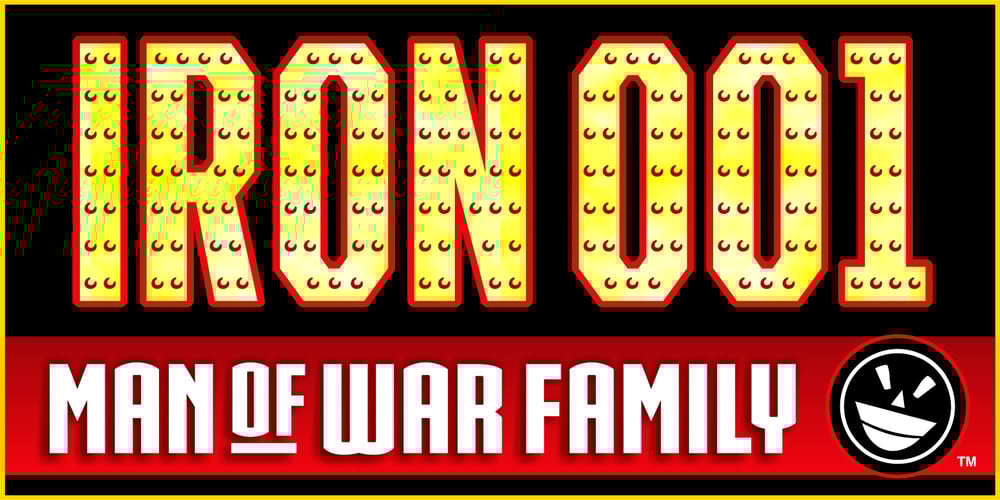
IRON MAN OF WAR Font Family was designed by Michael Gene Adkins and published by The Fontry. IRON MAN OF WAR contains 8 styles and family package options. Get ready to experience four ferrous versions of an industrialistic face that will leave your graphics anchored in place and armored up for war. Replete with buckets of rivets and powerful angles, the IMOW font family will help you lock down a layout in ways regular typefaces can’t match. Your designs will experience an invincibility rarely seen as you choose between plain or permanently bolted in place. Which one will be the primary weapon in your arsenal? All certainly have the power to handle any task put to them. So which will you choose to suit up and enter the fray with? To visit the specimen book for the IMOW family, click the Gallery tab. If your browser is having trouble viewing the PDF spec book, simply go to the gallery, right click on the PDF image, and save it to your computer for direct viewing in Adobe Acrobat. Certain browsers like Google Chrome will provide better viewing results. The spec book for the IMOW family is quite extensive, highlighting replacement features, layering capabilities and expanded language support. In short, it’s worth the look. Click this link to go directly to PDF browser view: http://origin.myfonts.com/s/aw/original/223/0/114239.pdf A freeware version of the IMOW family is available at: http://www.fontspace.com/the-fontry/iron-man-of-war Style-menu based LAYERING EFFECTS are available in this commercial version of the IMOW font family.